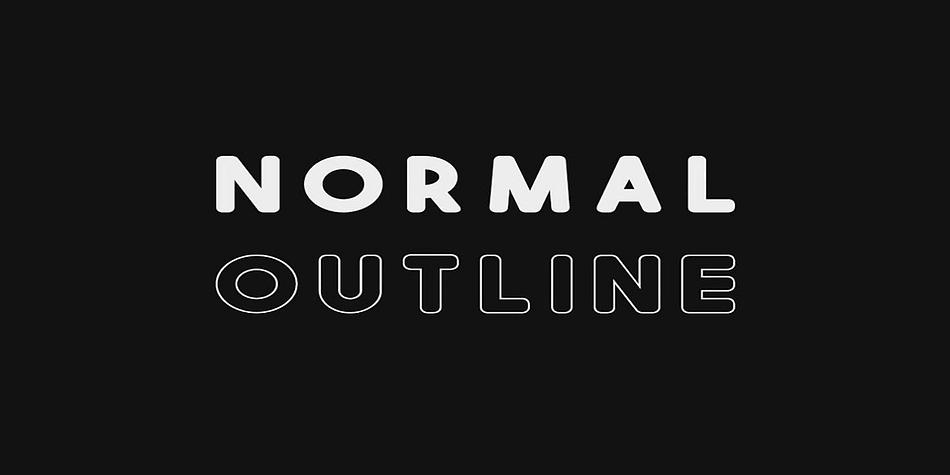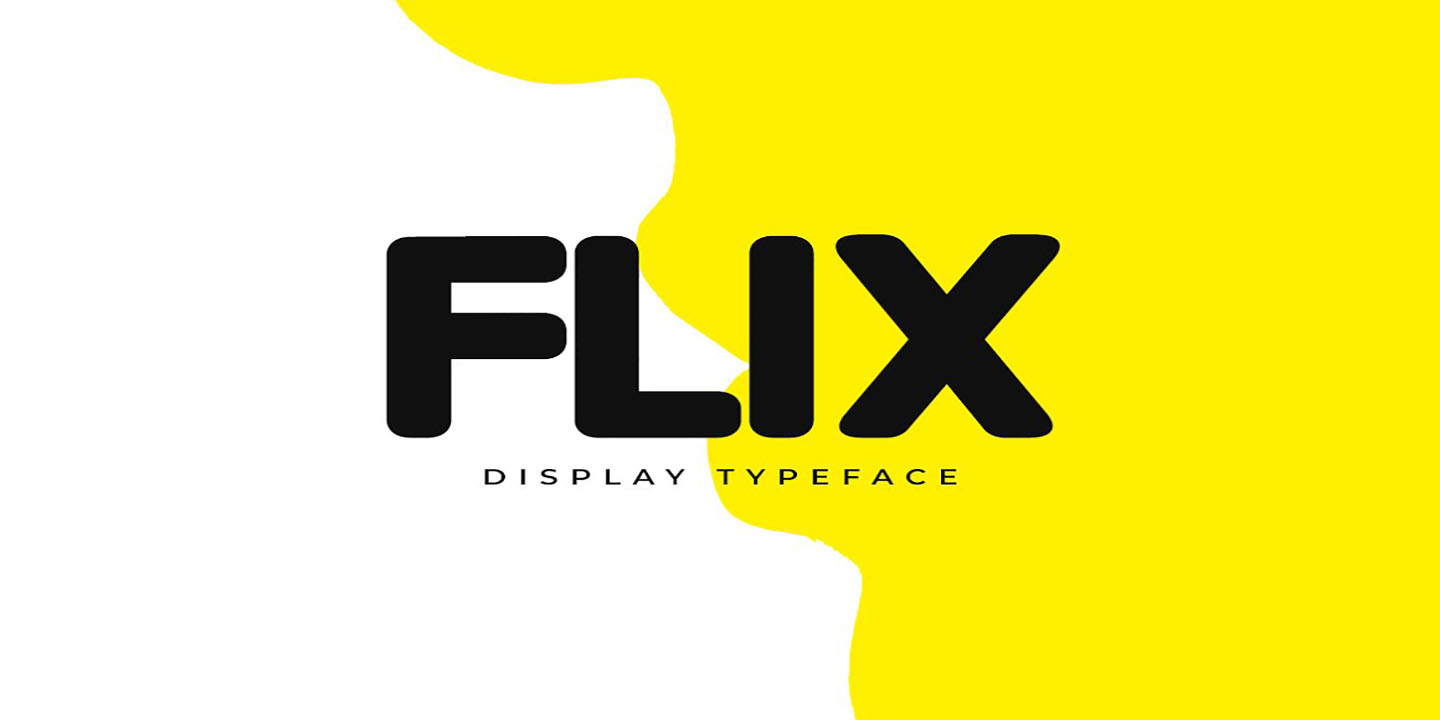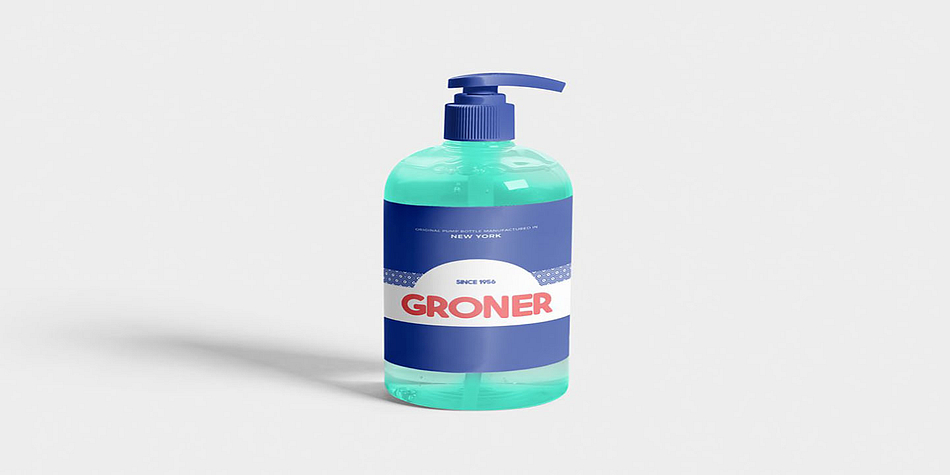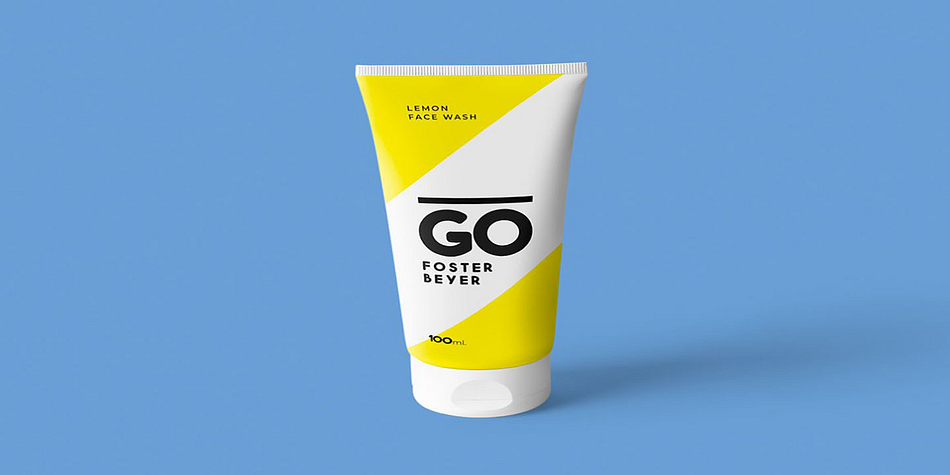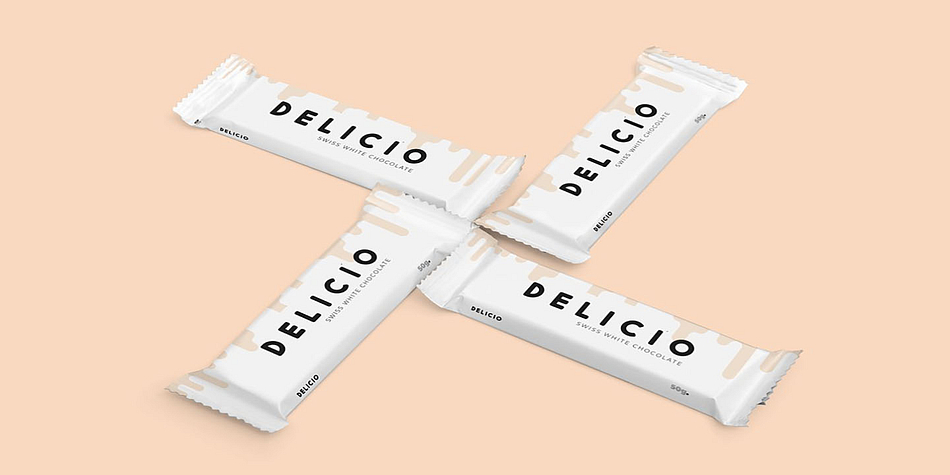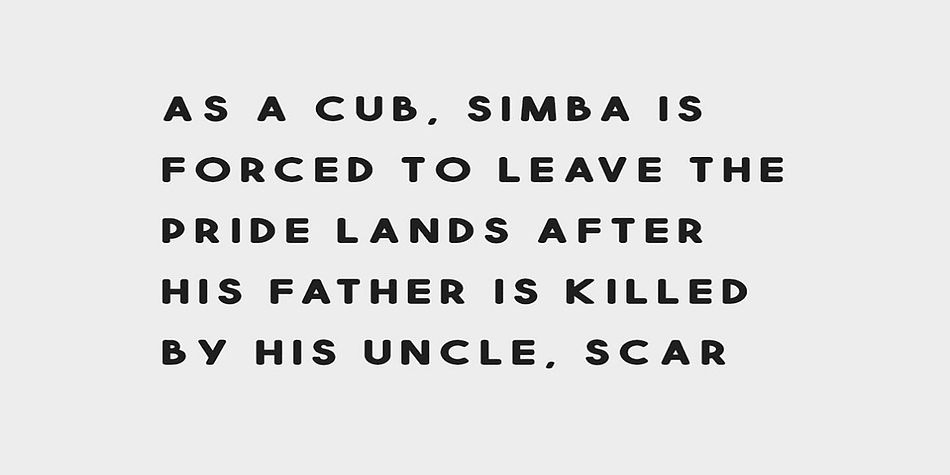
FLIX
FLIX is a display sans font family. This typeface has two styles and was published by Fontastica.
FLIX is a unique typeface for headlines, big text, branding, logotypes & display usage. This all-caps typeface is also perfect for creating great logos, promotional content and marketing graphics that lift the creative aspects of the design. Adding some letterspacing and it will create perfectly minimal and modern headlines and logotypes - please see the examples shown above to get an idea about the capability of this typeface.
FLIX comes with single weight but two styles (Regular & Outline). The pack contains OTF, TTF and Web Fonts (all EOT, SVG, TTF, WOFF, WOFF2 everything is included).